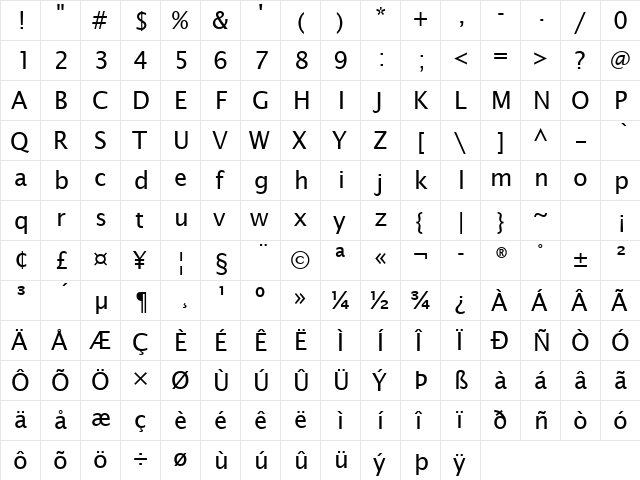
Lucida Sans Regular
Design Context for Lucida Sans Typeface
Lucida Sans takes a measured approach to typography — its balanced proportions and neutral character make it a reliable workhorse for both digital and print work.
Pro Tip: Use Lucida Sans in both headline and body roles to test its range before committing to a single application.